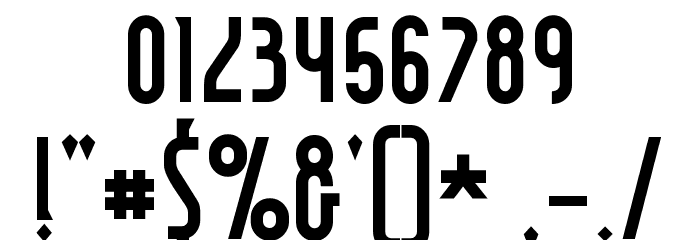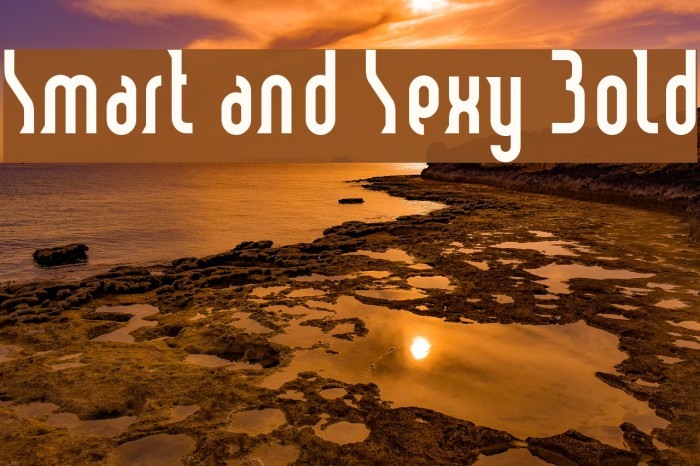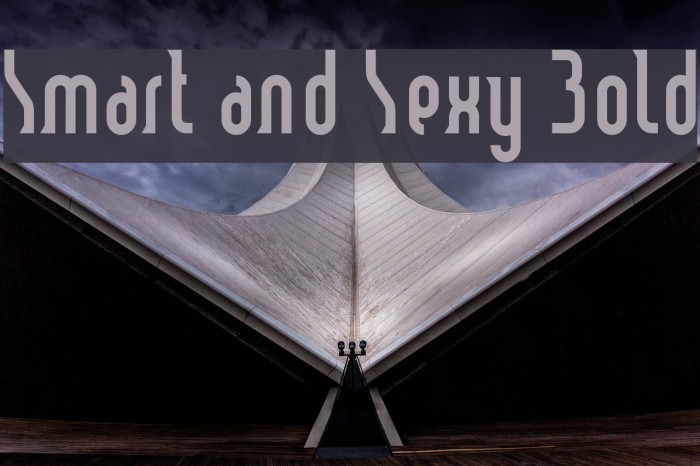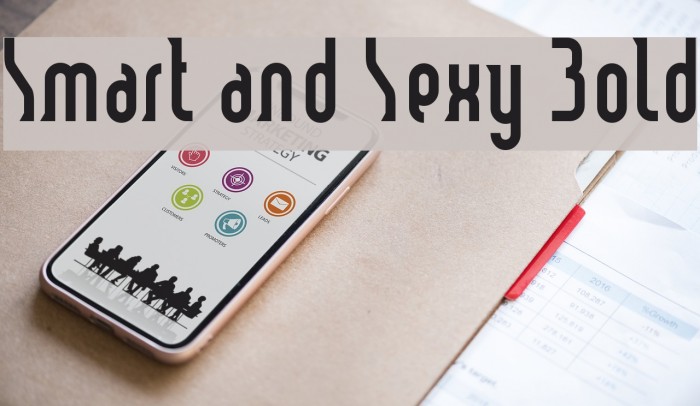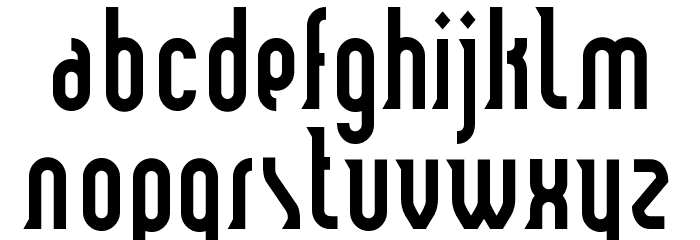
Smart and Sexy Bold Font
Smart and Sexy Bold Description
This font features a bold and striking design with a modern, geometric aesthetic. The characters are tall and narrow, with a unique angular style that gives them a futuristic look. The uppercase letters are particularly distinctive, with sharp edges and a strong presence. The lowercase letters maintain the same geometric theme, offering a cohesive appearance across the typeface. Numbers and special characters are designed to match the overall style, ensuring consistency. This font is ideal for making a bold statement in any design project.
| Proposed Projects | Ideal for branding, posters, headlines, and any project that requires a strong visual impact. |